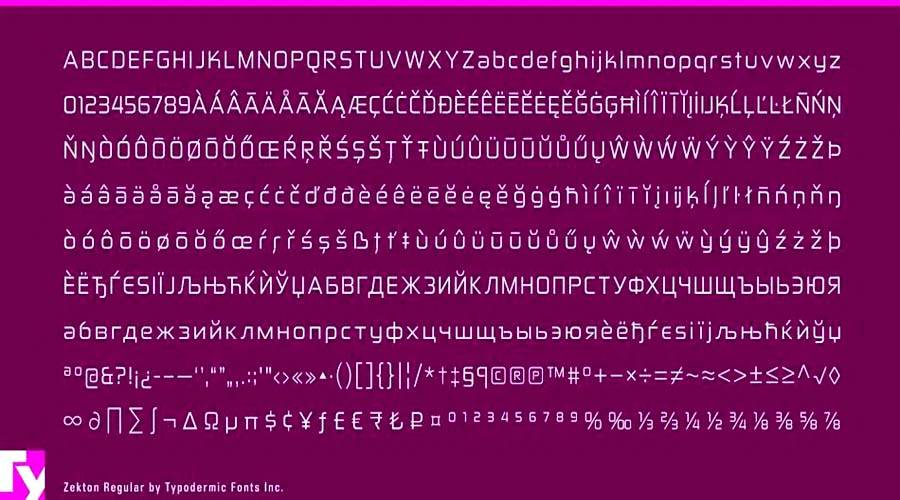
Zekton Font Family
Zekton Font Family is a basic Sans Serif font planned and released on October 30, 2019 by typodermic fonts Inc.
Zekton Font Family is a vibrant and lighthearted new font that will liven up your projects and inspire you to generate something memorable. This typeface is appropriate for printing, logos, articles, presentations, advertising, and other marketing and promotion initiatives. You can go toe-to-toe with your co-designers using this font without thinking even twice.
| Name | Zekton Font Family |
| Style | Sans Serif |
| Designer | typodermic fonts Inc. |